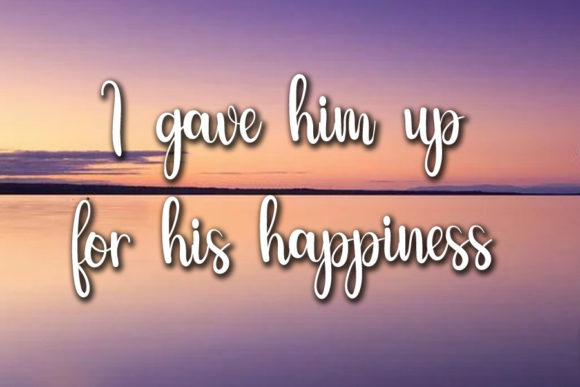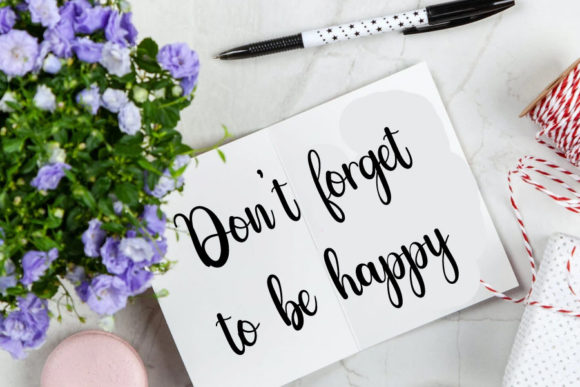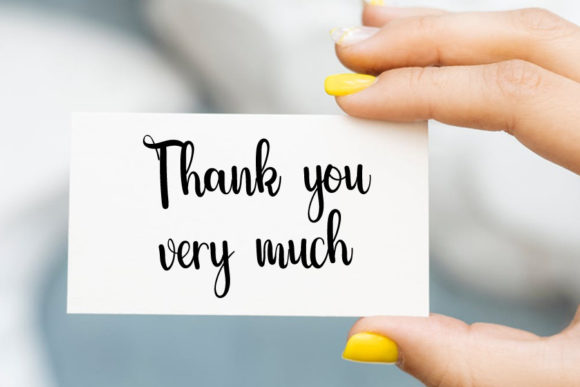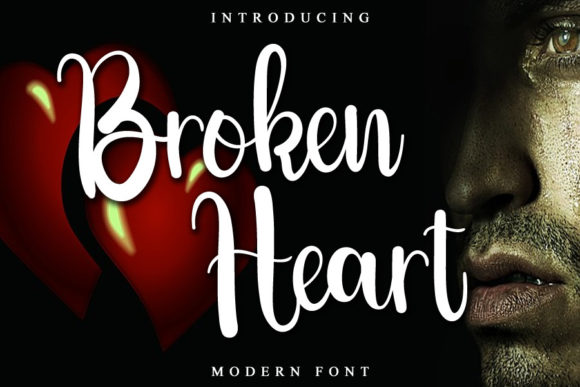
The Broken Heart Font: A Fresh and Beautiful Addition to Your Design Toolkit
I’ll never forget the time I was working on a wedding invitation project, and my client asked me to create a custom font to match their special day’s aesthetic. I spent hours scouring the internet for the perfect font, but nothing seemed quite right. That’s when I stumbled upon the Broken Heart font, and it instantly captured my heart (no pun intended!). In this article, I’ll share my experience with this beautiful font, its features, and how to make the most of it in your designs.
An Honest Review of Broken Heart Font
So, what makes the Broken Heart font so special? Here are a few things I love about it:
- ✨ Fresh and unique design that’s perfect for creative projects
- ✅ Highly versatile and adaptable to various design styles
- 💕 Emotionally resonant, making it ideal for projects that require a touch of whimsy or romance
- 👍 Simple and easy to read, even in smaller sizes
Of course, no font is perfect, and Broken Heart has a few minor quirks:
- 🤔 Limited language support (but it’s still a great option for English-based projects)
- ⚠️ Some users may find the font a bit too delicate for certain design applications
- Explore the font’s glyphs and OpenType features, such as swashes and ornaments, to add a personal touch
The Backstory of Broken Heart Font
Broken Heart font was created by a talented designer who wanted to capture the essence of love and heartbreak in a beautiful, typographic form. Inspired by the intricate details of hand-drawn lettering, this font is perfect for designers who want to add a touch of romance and whimsy to their projects.
| Font Name | Broken Heart Font |
| Author | ABBAsalam |
| What is the Broken Heart font best used for? | Broken Heart font is versatile and can be used for a variety of design projects, including YouTube banners, cover logo mockups, wedding invitations, ID cards, flyers, and crafts. |
| Is Broken Heart font suitable for body text? | While Broken Heart font is beautiful, it’s best used for headlines and titles. Its delicate design may not be suitable for body text, especially in smaller sizes. |
| Is Broken Heart font available in different styles? | Currently, Broken Heart font is available in a single style, but its OpenType features and glyphs offer a range of creative possibilities. |
In conclusion, Broken Heart font is a stunning addition to any design toolkit. Its unique blend of elegance and whimsy makes it perfect for a wide range of creative projects. With its easy-to-use features and versatility, you’ll love working with this beautiful font.